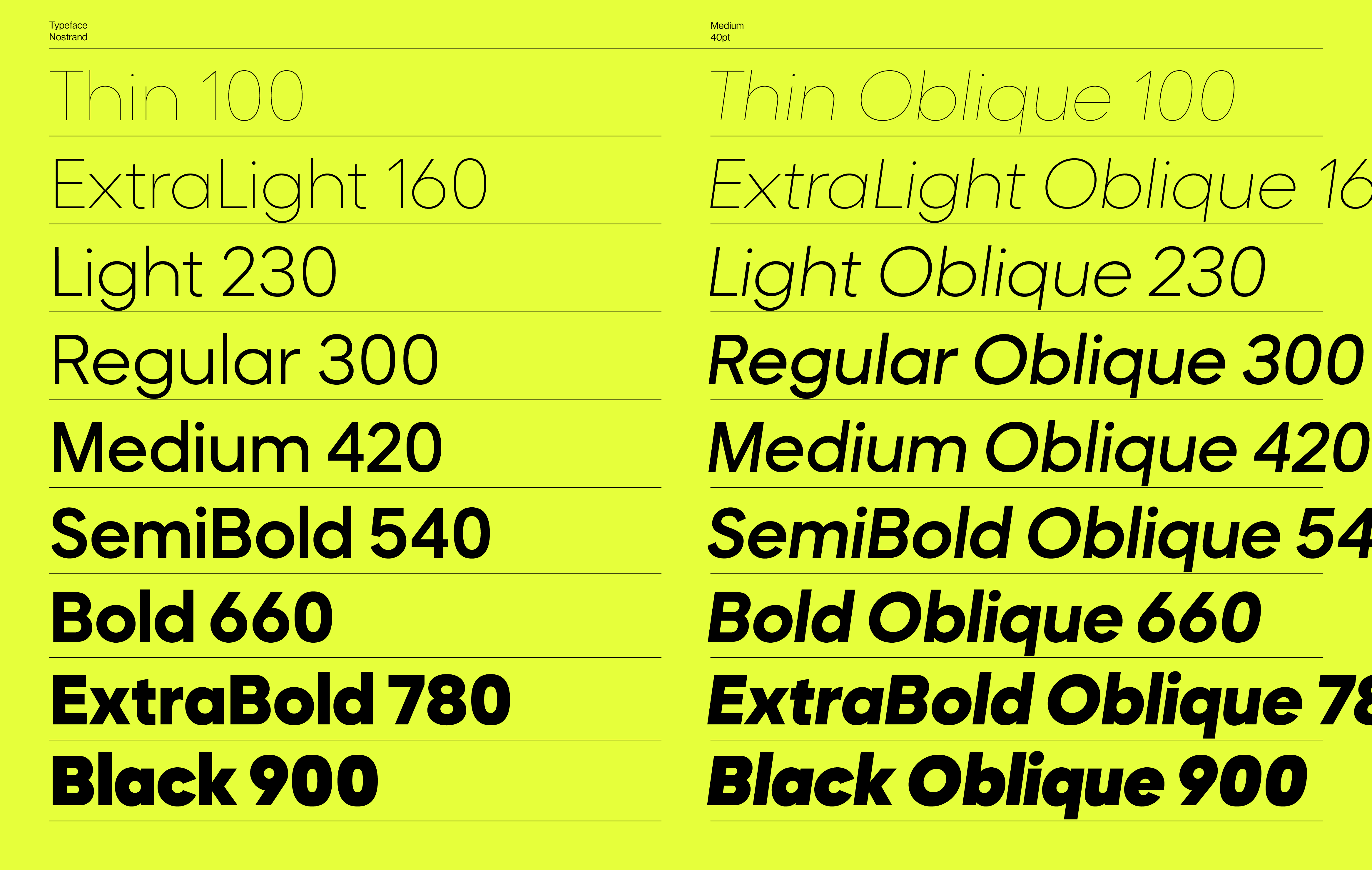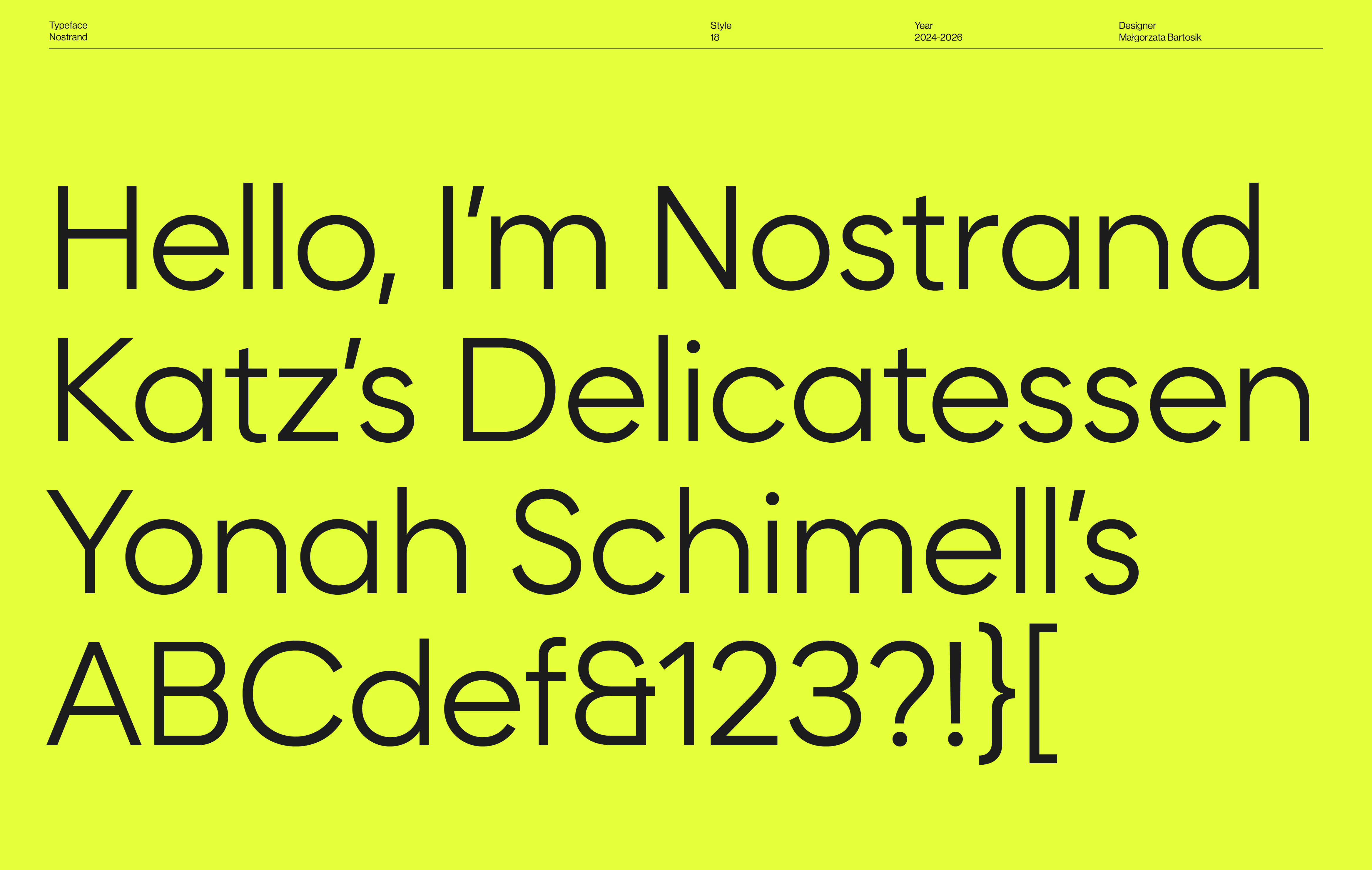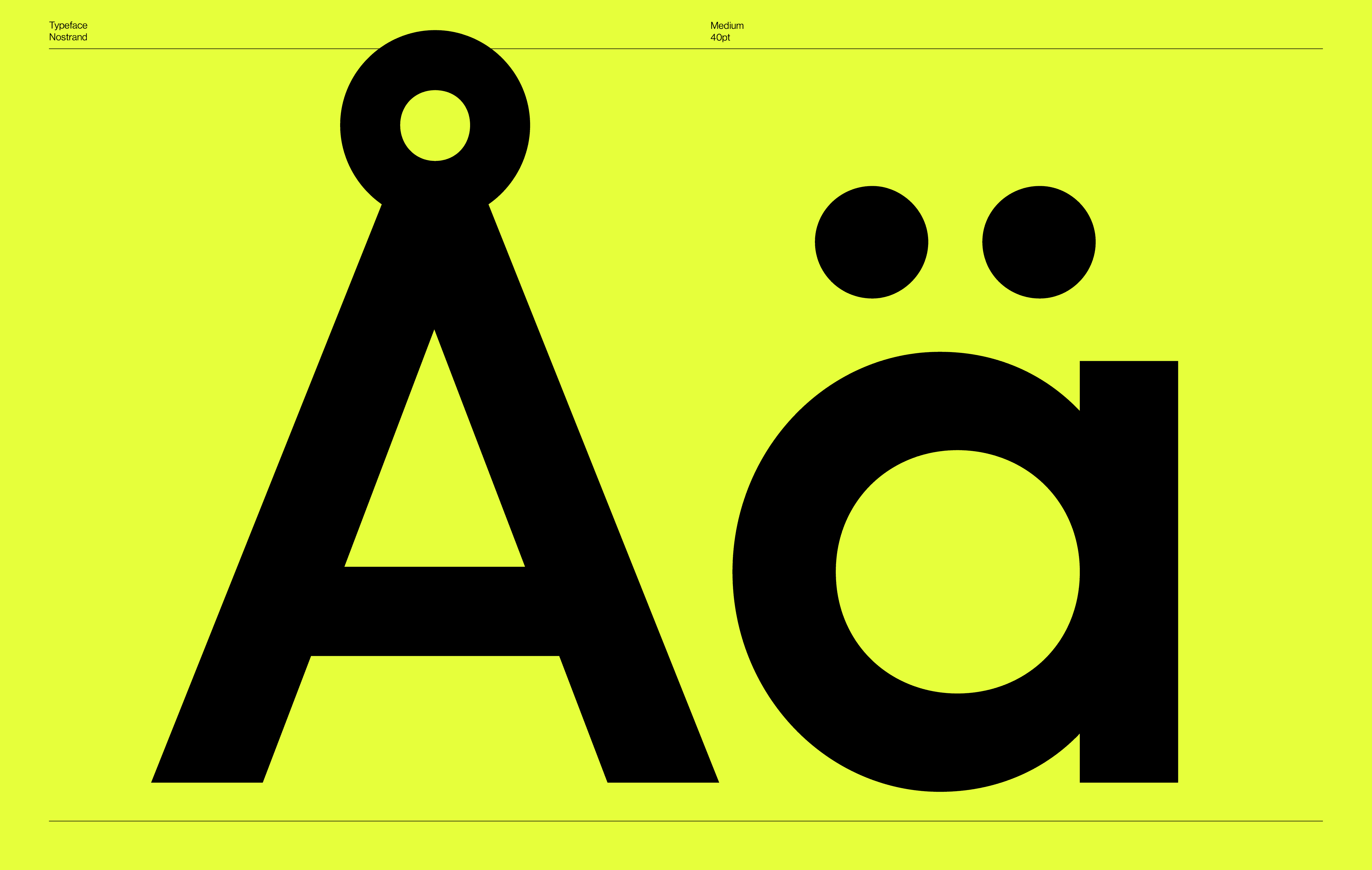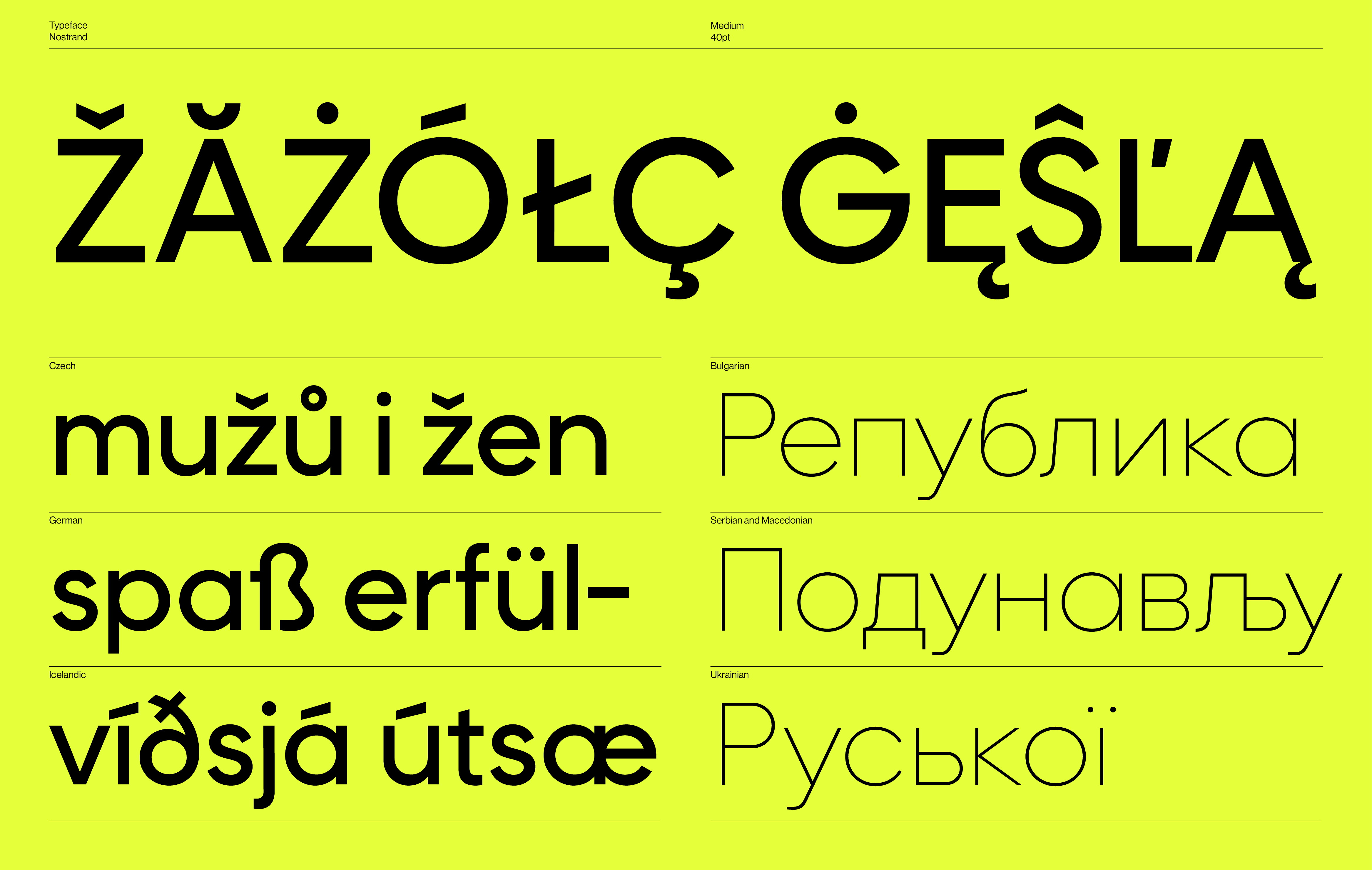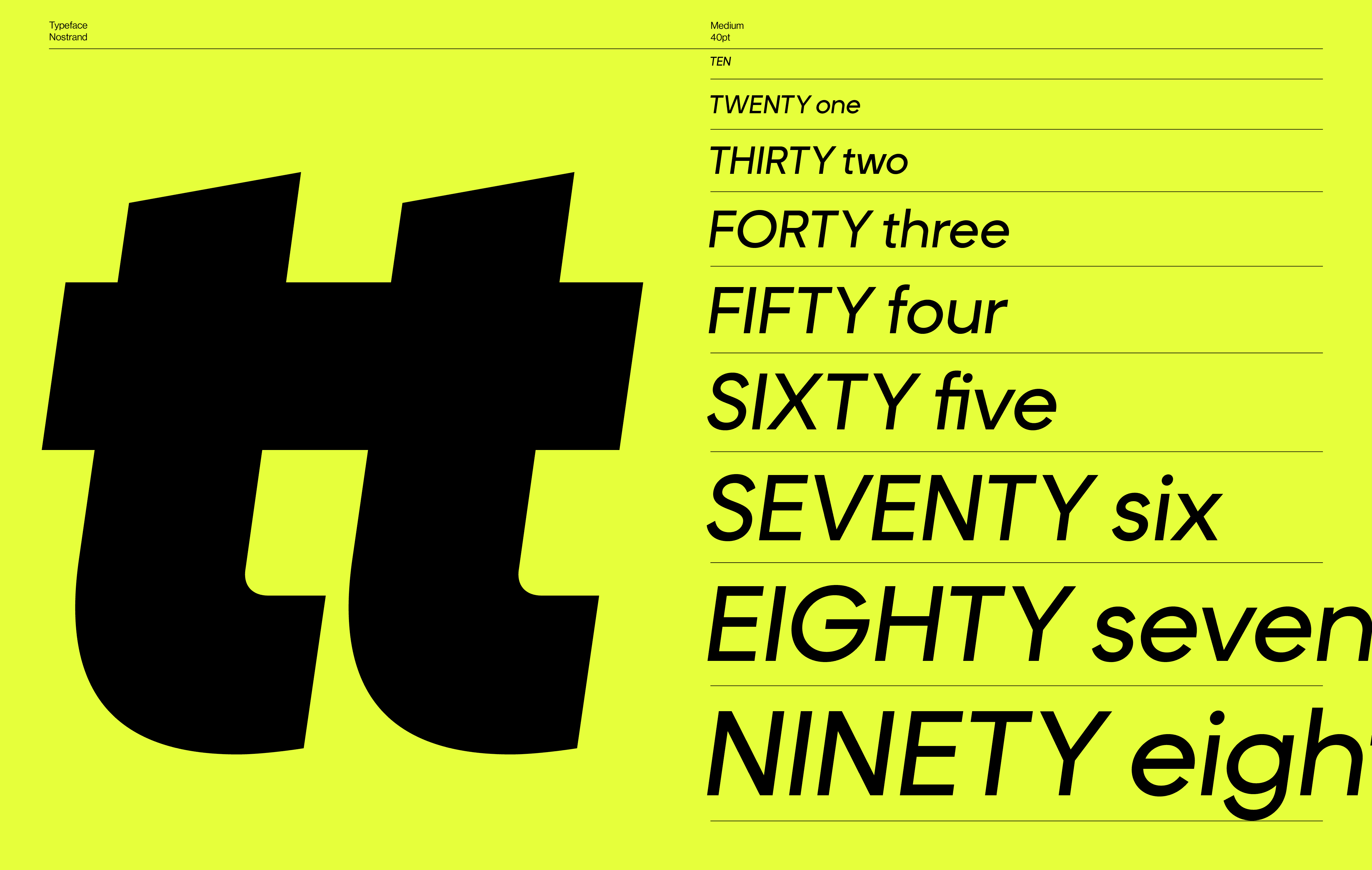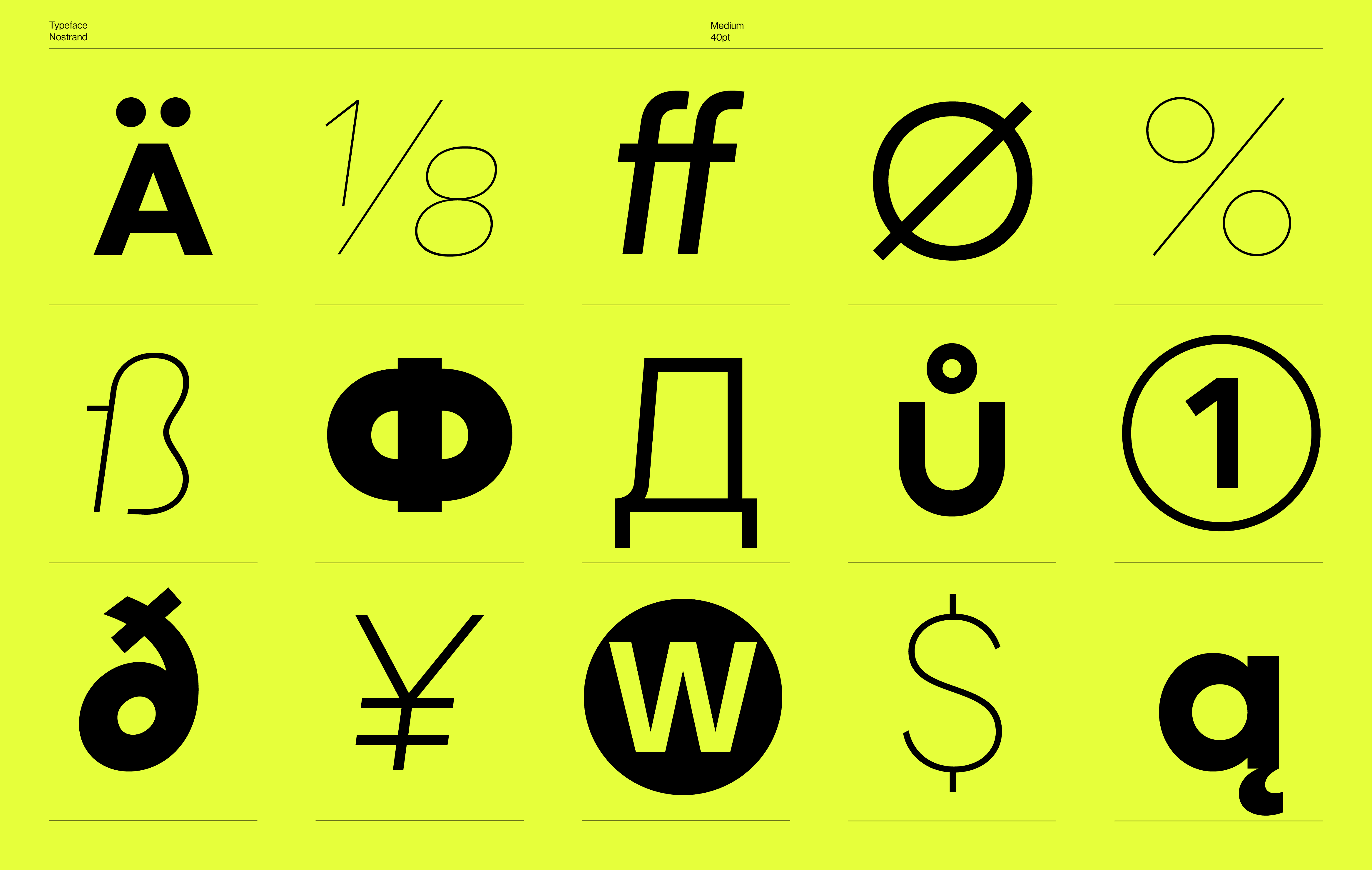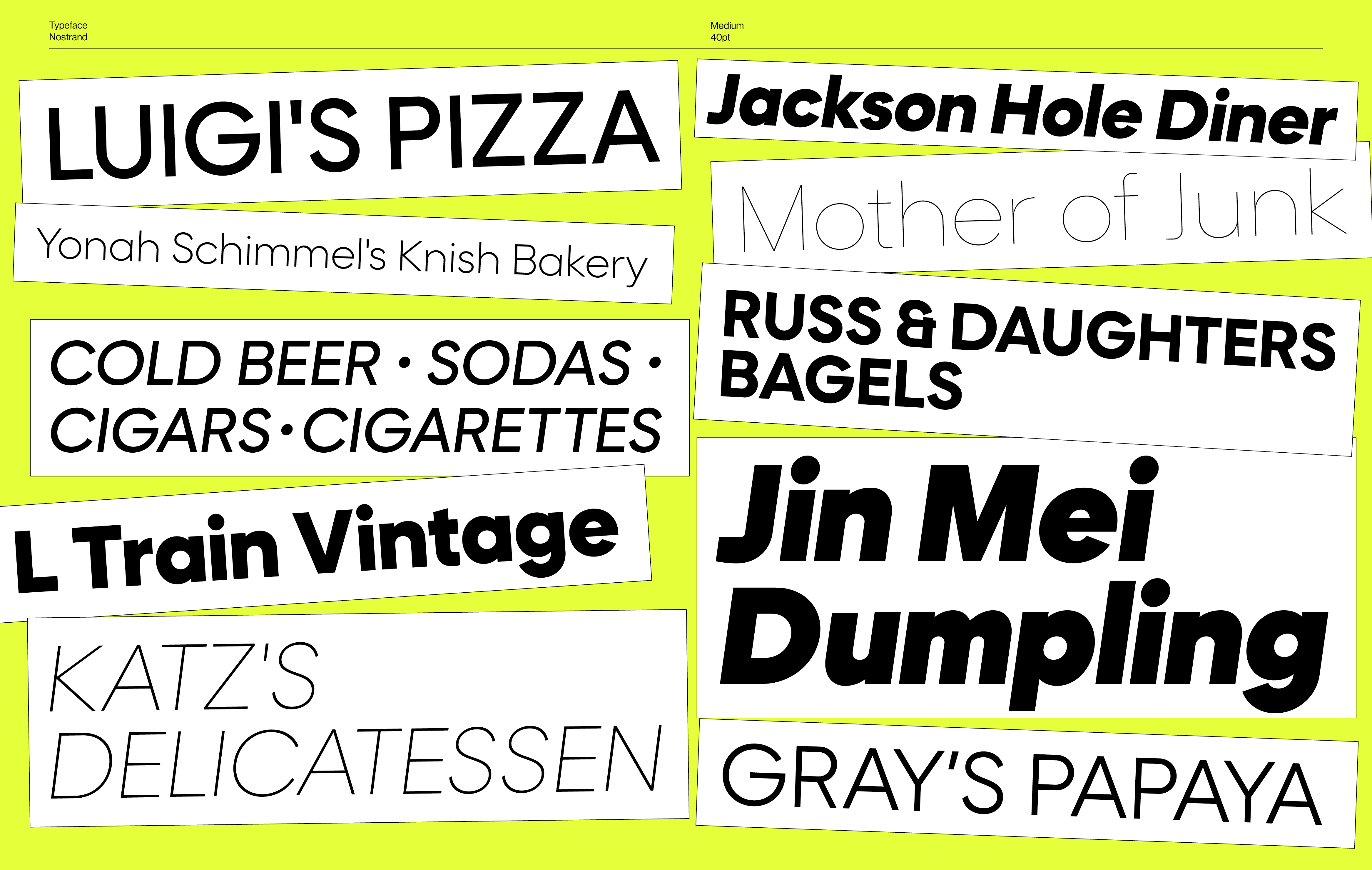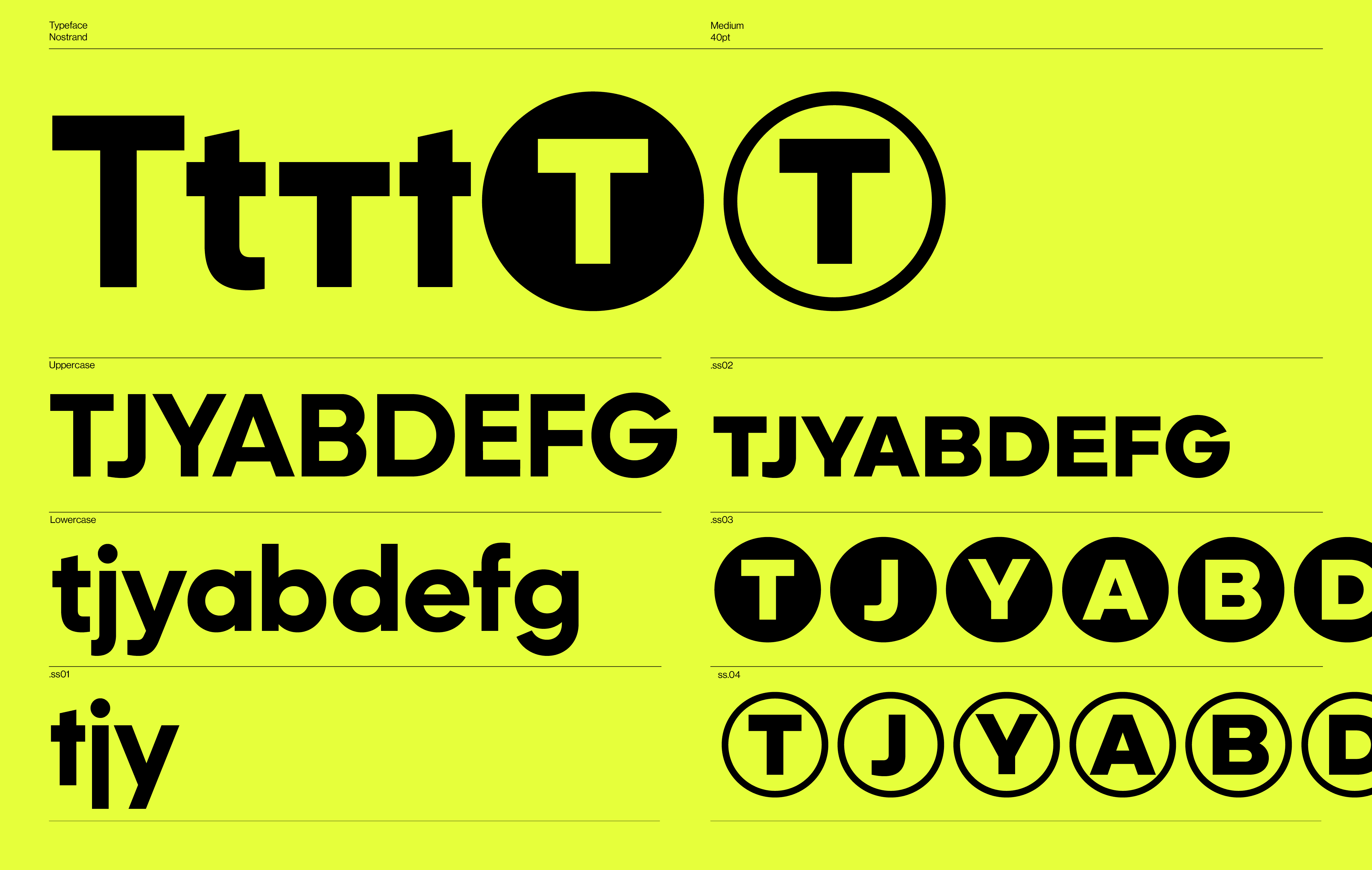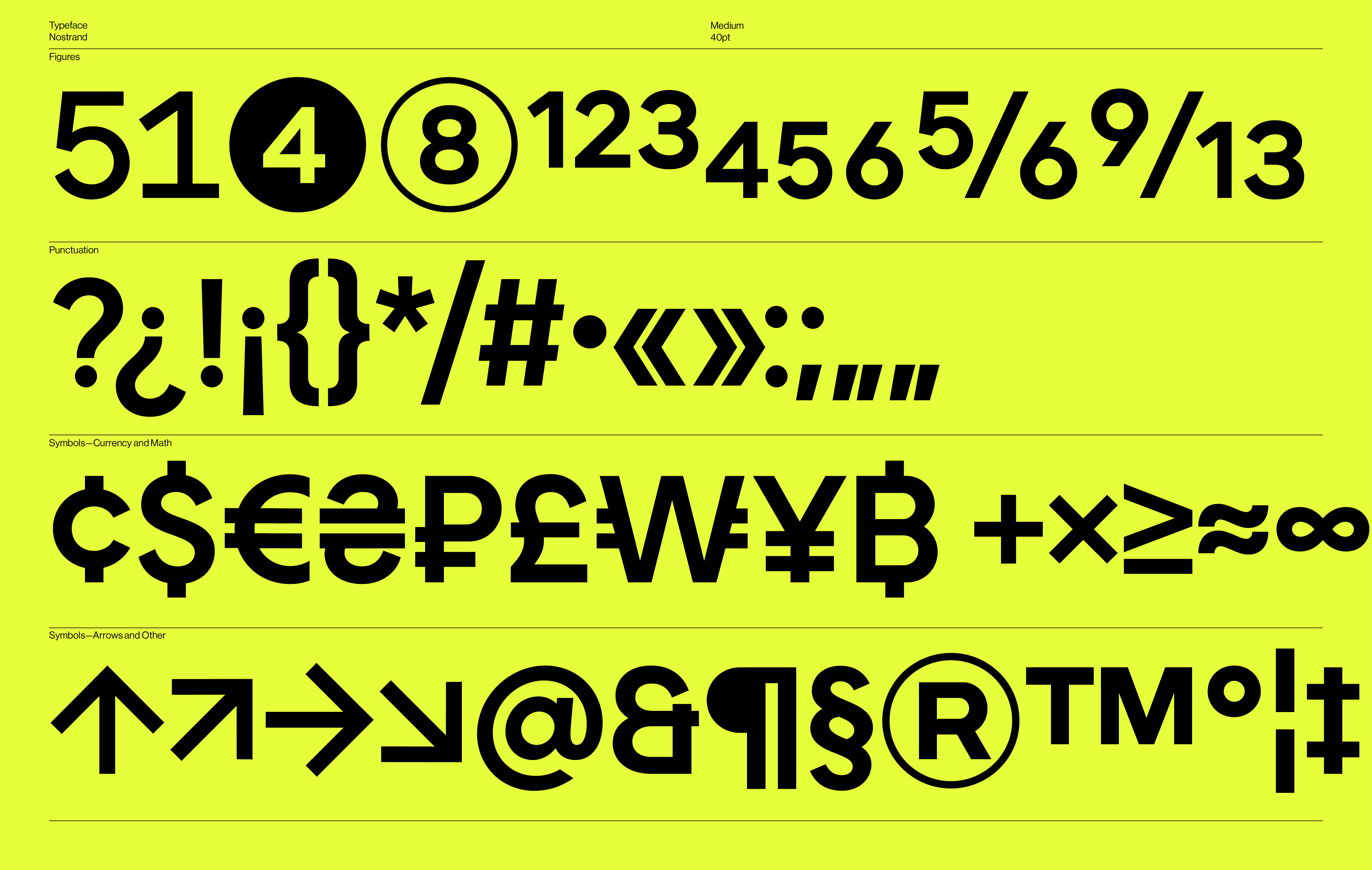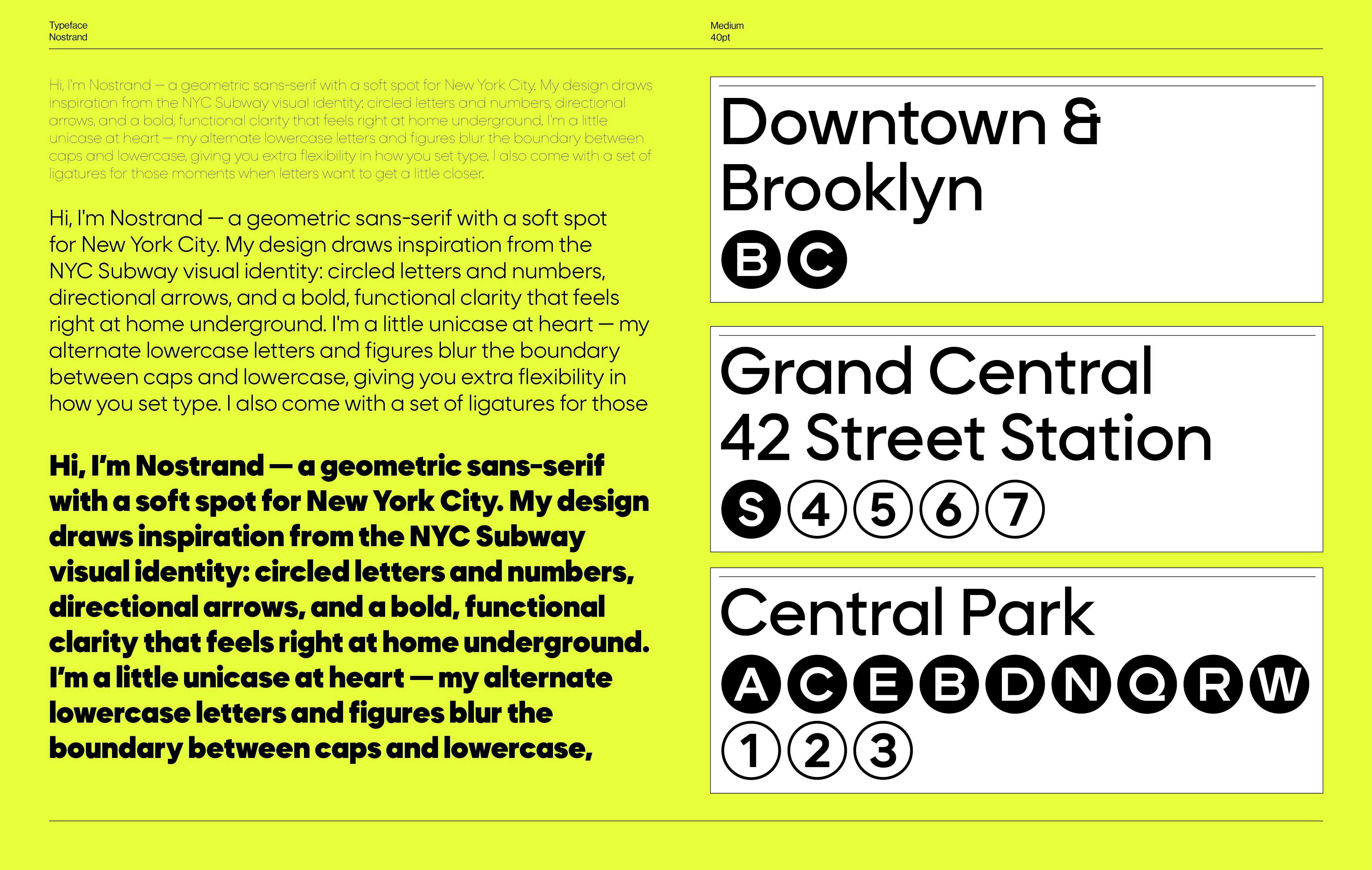
Nostrand is a geometric sans-serif born out of love for New York City — a city that never stops inspiring me, and honestly, never lets me go. Named after Nostrand Av station in Brooklyn, which holds a special place in my heart. Nine weights plus oblique variants, and four stylistic sets: alternate letterforms, a unicase variant, and two sets inspired by NYC subway line markers — circled letters and numbers, filled and outline. The diacritics have their own attitude — flattened acutes, sharp circumflexes, and a ring that sits just a little too high. Very New York. Arrows in symbols, ligatures, and Latin and Cyrillic with broad language support.